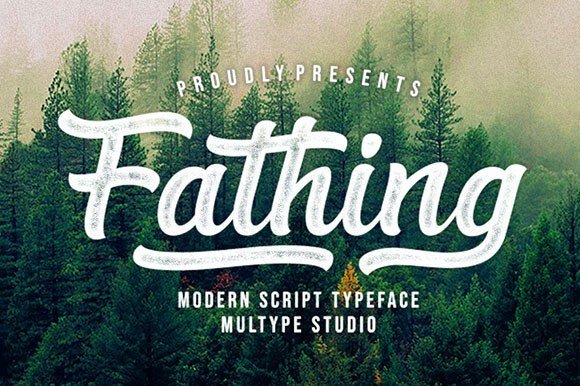
Fathing Font is a modern script font. It maintains its classy calligraphic influences while feeling contemporary and fresh. This versatility will appeal to a wide range of crafty ideas, from letterheads and titles, to stationery.
Fathing Font would be an excellent addition to a font collection for use in headlines, branding, and quote graphics. It’s also a fantastic crafting font – endless possibilities for vinyl cutting machine fanatics!